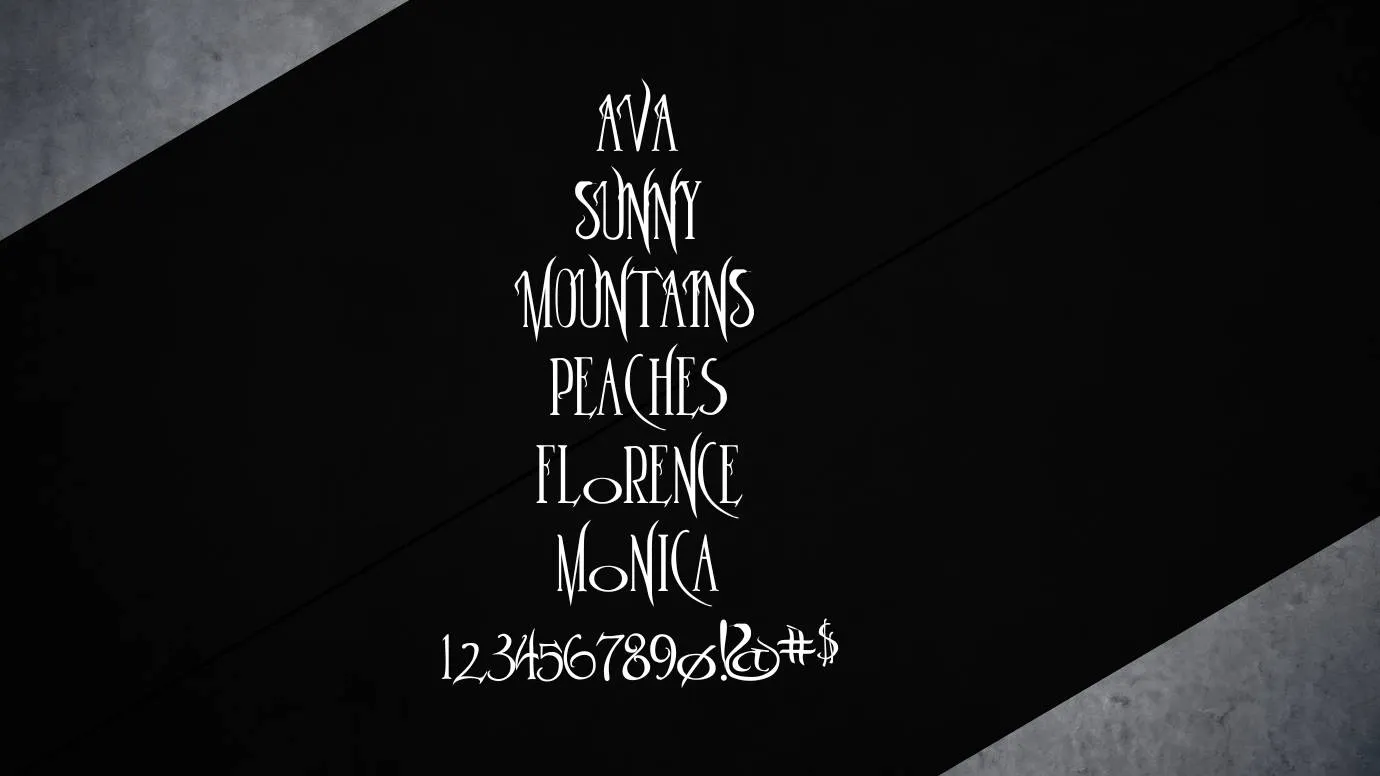
Parseltongue Font is an amazing horror font that comes with elegant and sharp textures. Another amazing thing is its sharp corners which help to add sharpness to the typeface. The sharp corners also make it a perfect choice for creating horror designs.
The typeface is similar to survival horror font. Both belong to the same horror family. This typeface is perfect for headlines, logos, even horror-themed video games, movie posters, book covers, special event cards, horror quotes, and many others.
It has somewhat of an eerie feeling that matches well with other typefaces like house of horror font as both are better choices for creating not only horror designs as well as others. This typeface is ideal for Halloween invitations, flyers, and other horror-themed designs in your personal as well as commercial projects.
The typeface has a striking influence and is meticulously crafted to bring an element of terror to your designs. It is designed with versatility in mind which can lead to a wide range of creative projects.
Designer of Parseltongue Font
The designer of the horror typeface is CarpeSaponem. This is a horror typeface to make your designs unique.
Parseltongue Font Family Includes
The typeface family includes regular, bold, and italic styles. The three styles combine different factors like symbols, glyphs, digits, punctuation, and numerous language support.
What is the texture of the Parseltongue typeface?
Parseltongue Font is an amazing horror font that comes with elegant and sharp textures. The sharp corners also make it a perfect choice for creating horror designs.
Where can I use the Parseltongue typeface?
This typeface is ideal for Halloween invitations, flyers, and other horror-themed designs in your personal as well as commercial projects.
Who owns the Parseltongue typeface?
The designer of the horror typeface is CarpeSaponem. He is known for his creativity and hard work which is reflected in his work.